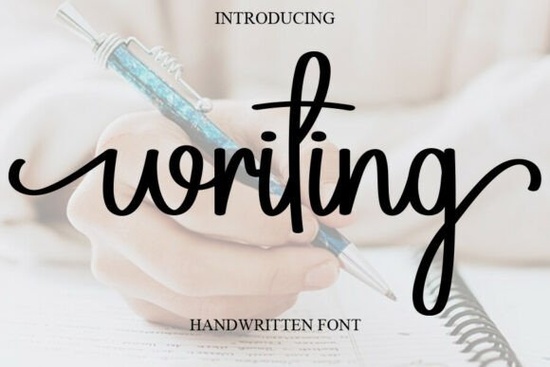
Looking for a font that feels warm and personal, like a handwritten note from a friend? Writing is a soft, flowing script that brings a gentle, romantic touch to any project. It’s perfect if you want your designs to feel elegant but still approachable like something made with care, not just pixels.
What makes Writing font stand out?
Unlike stiff or overly decorative scripts, Writing has a natural rhythm. The letters connect smoothly, mimicking real handwriting without being too fancy. It works well in both digital and print formats, so whether you’re designing a wedding invite or a social media post, it keeps things light and inviting.
It’s especially great for:
- Wedding invitations and thank-you cards
- Branding for small businesses (think boutiques, cafes, or gift shops)
- Greeting cards for birthdays, baby showers, or anniversaries
- Fashion lookbooks and product labels
- Marketing materials where you want to feel friendly, not corporate
How can I use this font in my creative projects?
You don’t need to be a designer to make something beautiful with Writing. Try pairing it with a clean sans-serif font for contrast like a modern headline with a handwritten tagline. Or use it on its own for a simple, heartfelt design.
For example:
- Use it for a quote on a printable wall art piece
- Add it to a custom T-shirt design for a boutique shop
- Create a set of matching birthday cards with a consistent style
- Design a menu for a cozy café with a handwritten feel
Because it’s a script font with clear letterforms, it’s also readable at smaller sizes perfect for labels or small text blocks.
Why designers and crafters love this font
Many creatives choose Writing because it adds personality without overwhelming the design. It doesn’t shout; it whispers warmth. And since it’s available in multiple weights and styles, you can adjust the tone depending on your mood soft and delicate, or slightly bolder for emphasis.
Final thoughts: Is Writing right for your next project?
If you’re looking for a script font that feels genuine, not forced, Writing is a strong choice. It’s not flashy, but it leaves a lasting impression. Whether you’re a hobbyist making handmade cards or a small business owner building a brand voice, this font helps you express yourself clearly and kindly.
Try it out on a few test designs. See how it fits with your current color palette, layout, and message. Chances are, once you start using it, you’ll keep coming back.